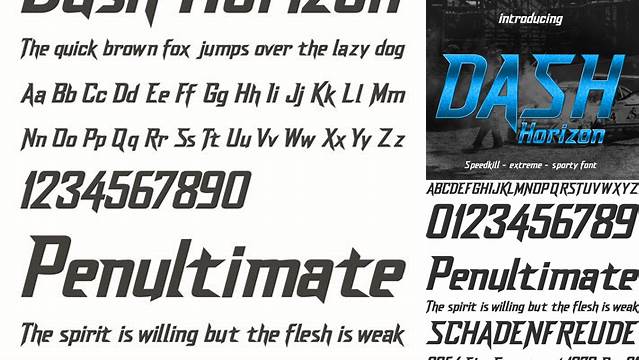
Dash Horizon Font: Free Download Guide & Alternatives
Are you guys looking to download Dash Horizon embedded font for free? Look no further! This comprehensive guide will walk you through everything you need to know about this sleek and modern font, where to find it, and how to use it in your projects. Dash Horizon is a popular choice for designers and developers alike, thanks to its clean lines and futuristic feel. It's perfect for adding a touch of sophistication to websites, logos, presentations, and more. In this article, we will delve into the specifics of the Dash Horizon font, exploring its characteristics, design applications, and the various avenues for obtaining it without any cost. We'll also cover the crucial aspects of font licensing and usage rights, ensuring you can confidently incorporate this typeface into your projects while adhering to legal and ethical standards. Whether you're a seasoned designer or just starting out, understanding the nuances of font usage is paramount, and this guide aims to equip you with the knowledge necessary to make informed decisions about your typography. So, let's dive in and explore the world of Dash Horizon, uncovering its potential to elevate your design work. We'll start by understanding why this font has gained so much popularity and then move on to the practicalities of downloading and using it.
What is Dash Horizon Font?
Before we dive into the download details, let's understand what makes Dash Horizon font so special. This font is characterized by its modern and futuristic design, making it a great choice for projects that aim for a cutting-edge aesthetic. Its clean lines and geometric shapes give it a technical and sophisticated feel, perfect for technology-related businesses, innovative startups, or any project that wants to convey a sense of progress and forward-thinking. The Dash Horizon font family often includes various weights and styles, offering versatility for different design needs. You might find options like regular, bold, italic, and even light versions, allowing you to create a visual hierarchy and add emphasis within your text. This adaptability is one of the key reasons why designers and developers gravitate towards this font; it's not just about aesthetics, but also about functionality and readability. Moreover, the font's legibility across different screen sizes and resolutions makes it suitable for both web and print applications. Imagine using it for your website headers, ensuring they grab attention without compromising readability, or incorporating it into a printed brochure, where its sharp lines and defined characters maintain clarity. Dash Horizon's appeal lies in its ability to blend style with substance, making it a valuable asset in any designer's toolkit. Its versatility extends beyond mere visual appeal; it's about creating a user experience that is both engaging and intuitive, guiding the reader through the content with ease and style. By understanding the inherent qualities of the Dash Horizon font, you can better leverage its potential to enhance your design projects.
Key Features and Design Applications
Dash Horizon boasts several key features that make it a standout choice for various design applications. Its distinctive geometric structure lends itself well to creating a modern and technical feel. The clean lines and sharp angles provide a sense of precision and sophistication, making it ideal for branding materials, websites, and digital interfaces. The font's legibility is another crucial aspect, ensuring that it remains readable even at smaller sizes, which is essential for body text and user interface elements. Think about the importance of readability in a user interface – clear and legible fonts contribute to a seamless user experience, preventing eye strain and ensuring that information is easily accessible. Dash Horizon's design also incorporates a certain level of elegance, preventing it from appearing too sterile or mechanical. This balance between modernity and aesthetics makes it a versatile choice for a wide range of projects. Consider its potential in a marketing campaign, where it can convey a sense of innovation and reliability, or in an editorial design, where it can add a touch of contemporary flair. Furthermore, the availability of different weights and styles within the Dash Horizon font family allows for creative exploration and flexibility in design. You can use bold weights for headlines to create impact and lighter weights for body text to ensure readability. The italic versions can add emphasis and visual interest, while the regular weight provides a solid foundation for the overall typography. This versatility empowers designers to create cohesive and engaging designs that effectively communicate their message. The applications of Dash Horizon are vast and varied, limited only by the designer's imagination. From corporate branding to app interfaces, its modern aesthetic and functional design make it a powerful tool in the world of typography.
In conclusion, Dash Horizon is a fantastic font choice for modern and futuristic designs. While finding a free version with the right license might require some effort, the tips and alternatives provided in this guide should help you in your quest. Remember to always respect font licenses and explore the world of typography to find the perfect fit for your projects. By understanding the nuances of font usage and applying effective design principles, you can create visually compelling and professional-looking designs that truly capture your audience's attention. The journey of mastering typography is an ongoing process of learning and experimentation, but the rewards are well worth the effort. So, dive in, explore different fonts, and discover the power of typography to transform your designs. Whether you choose Dash Horizon or one of its excellent alternatives, the key is to use fonts intentionally and effectively, creating a visual experience that is both engaging and impactful. Happy designing, guys!